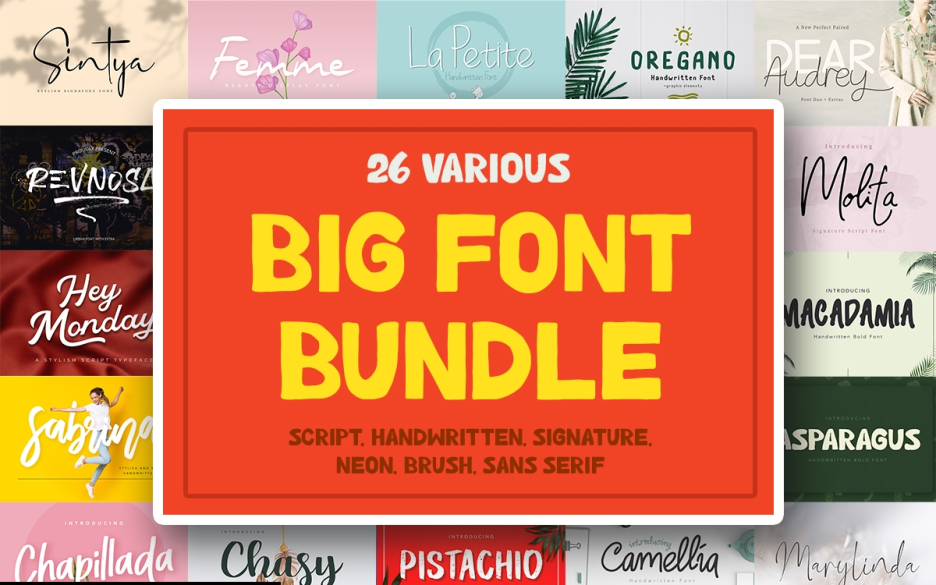
Big Font Bundle
The Big Font Bundle offers a diverse collection of high-quality fonts designed to elevate your creative projects. This bundle includes a variety of font styles, such as serif, sans-serif, display, and script, ensuring you have the perfect typeface for any application.
• Multiple font weights and styles
• Versatile designs suitable for various uses
Each font in the bundle is crafted with attention to detail, providing excellent legibility and aesthetic appeal. Whether you’re working on branding, logos, web design, or print materials, these fonts will meet your needs.
• Use bold styles for headings and titles to grab attention.
• Combine different styles for a unique typographic hierarchy.